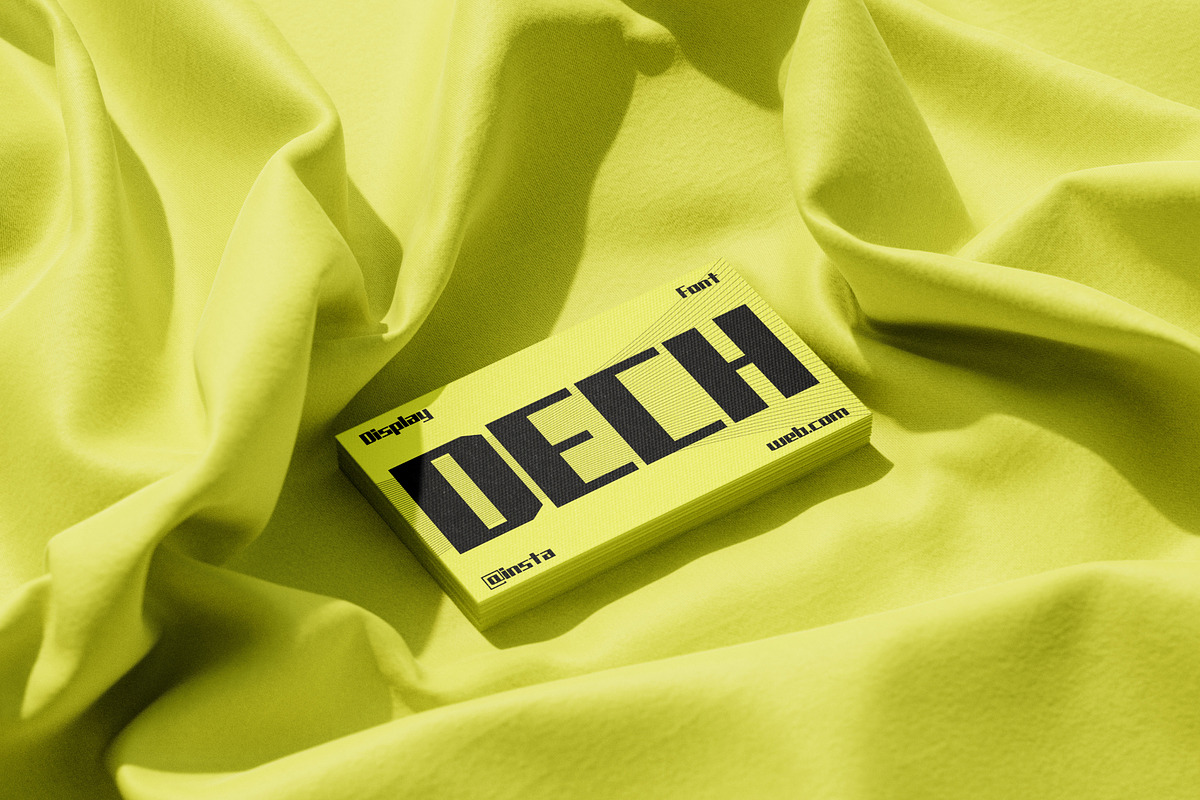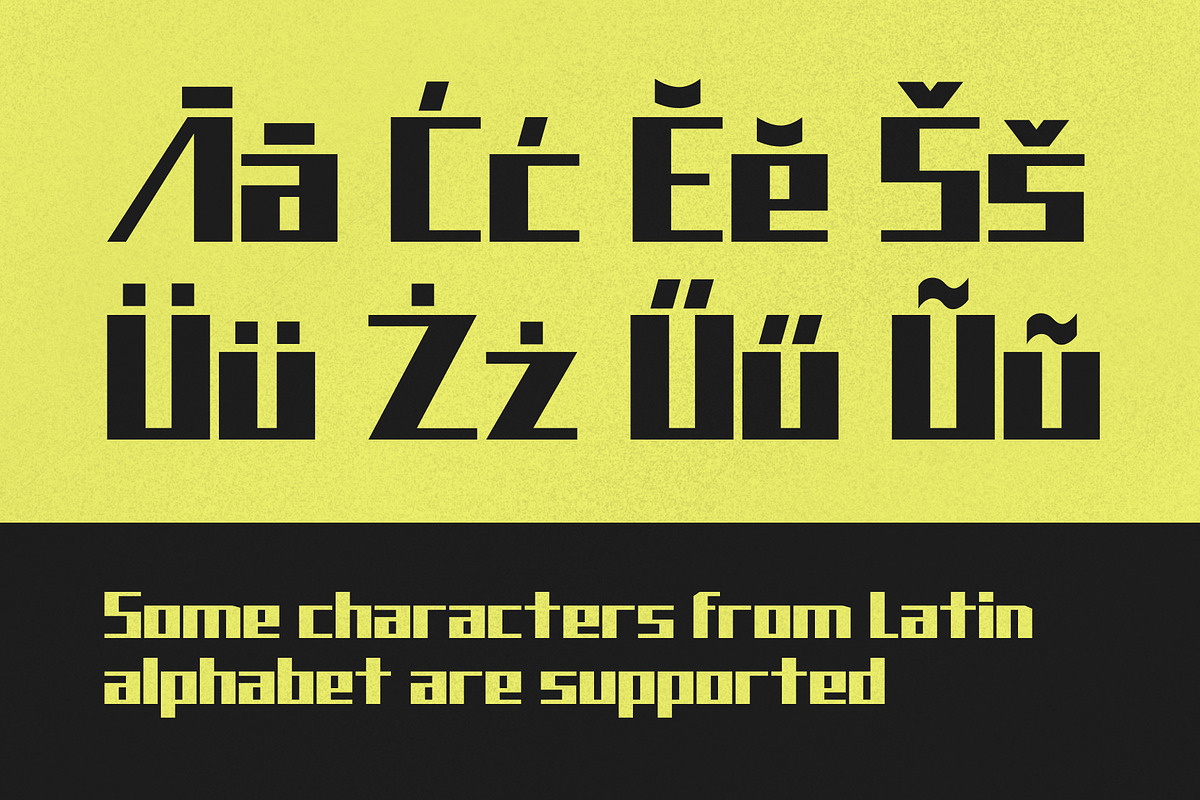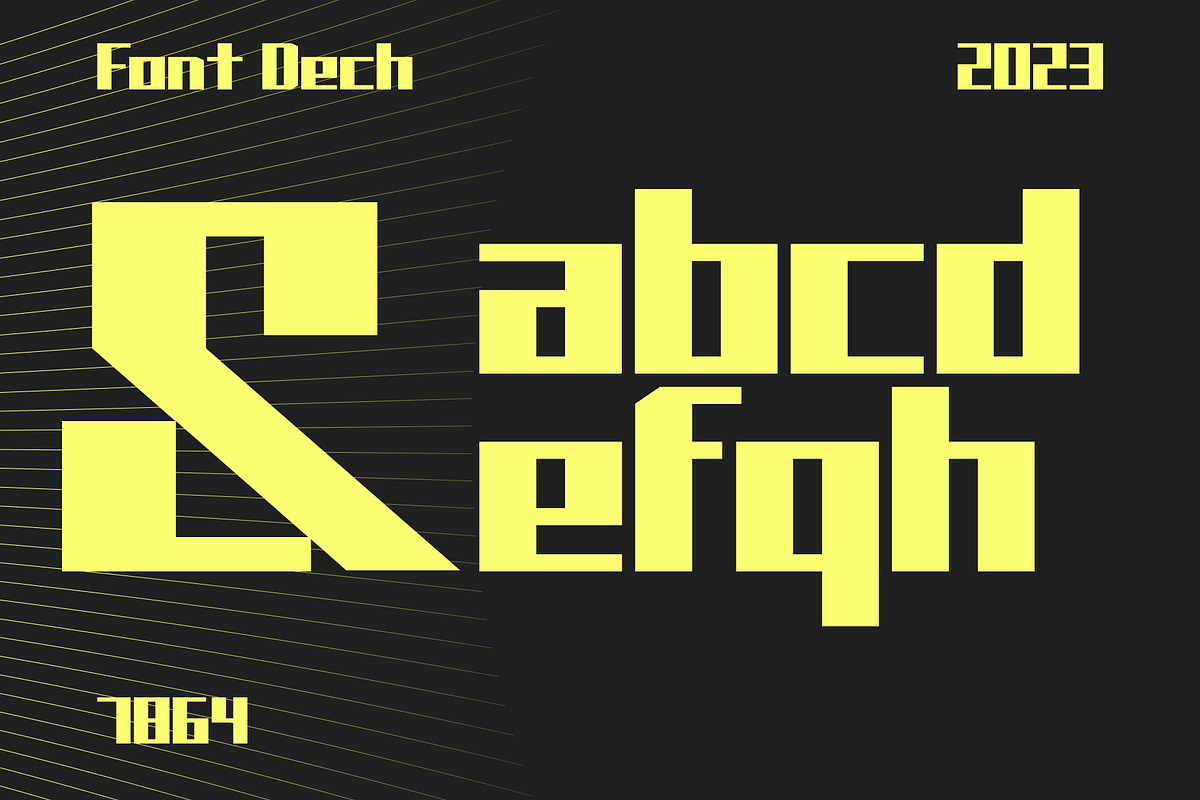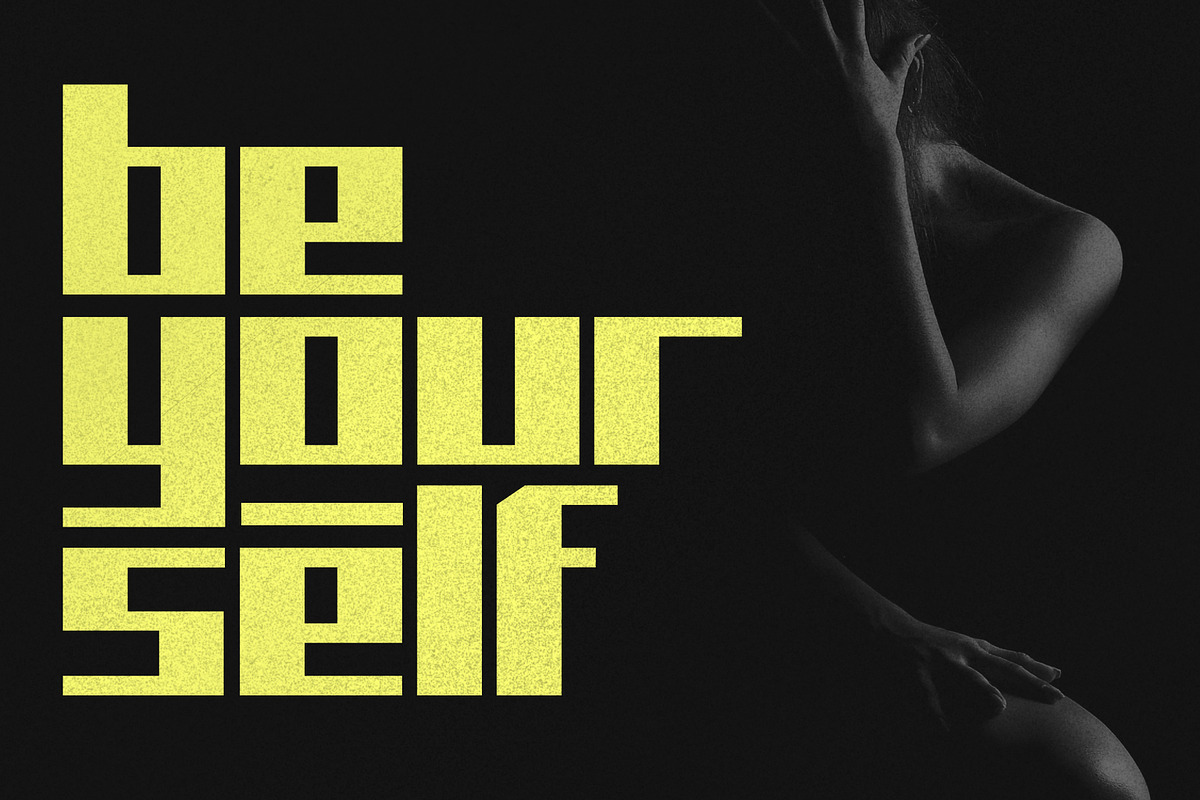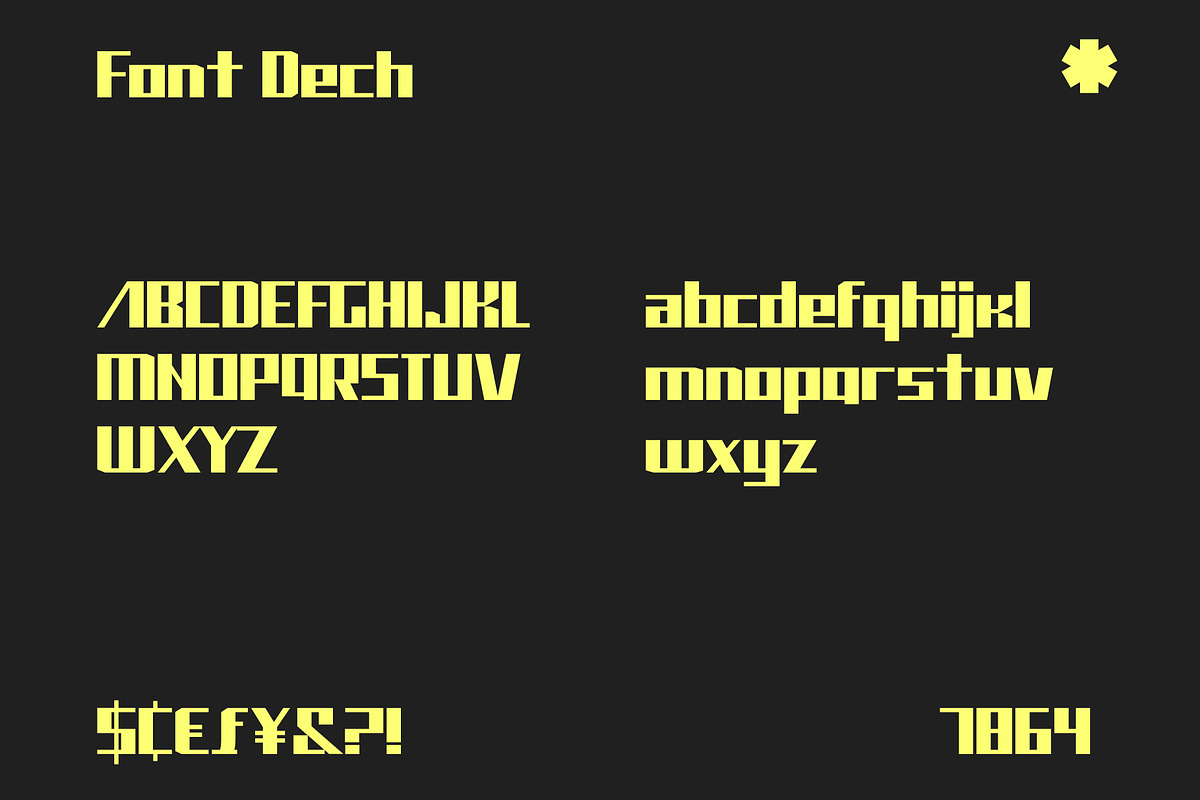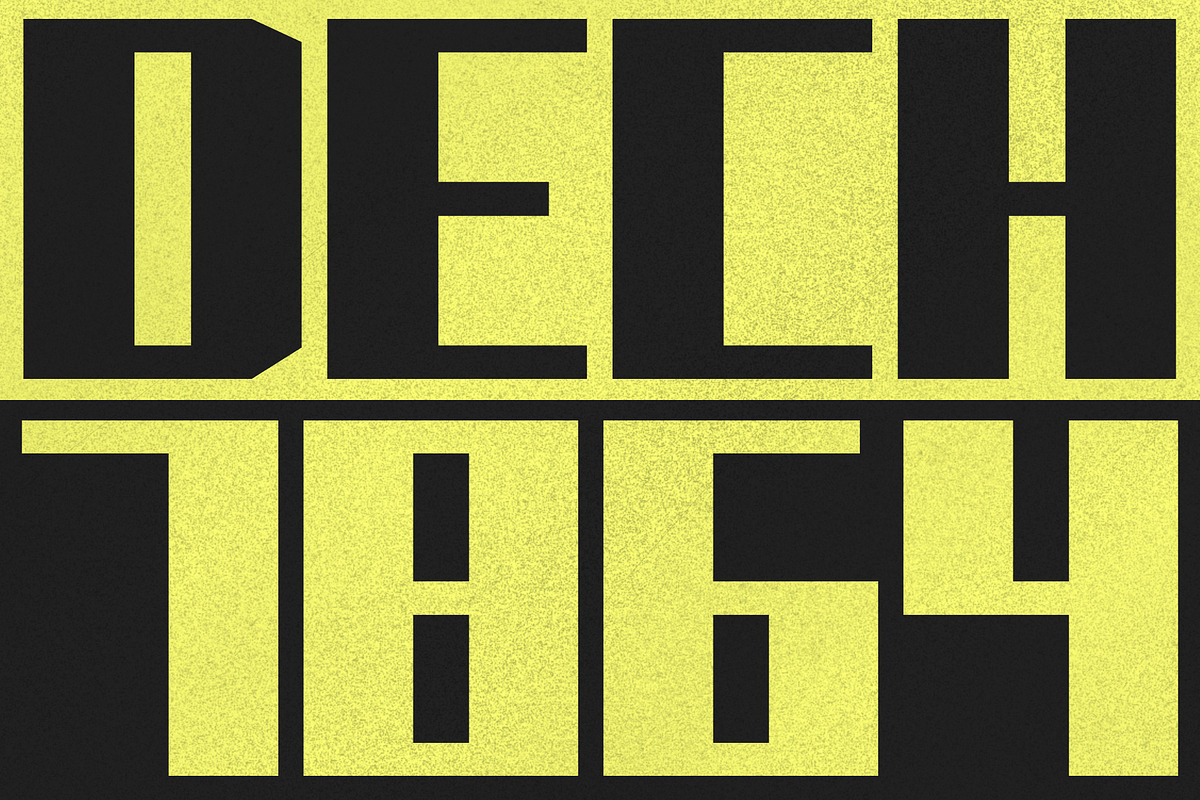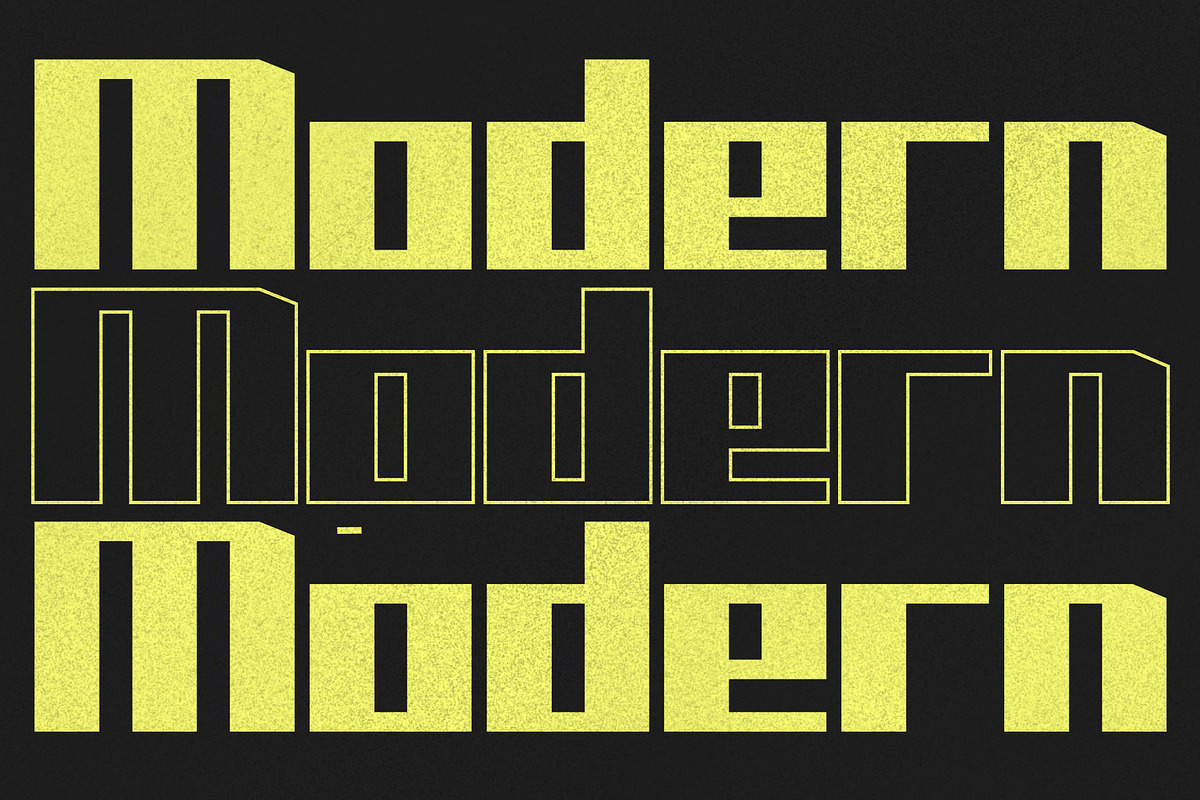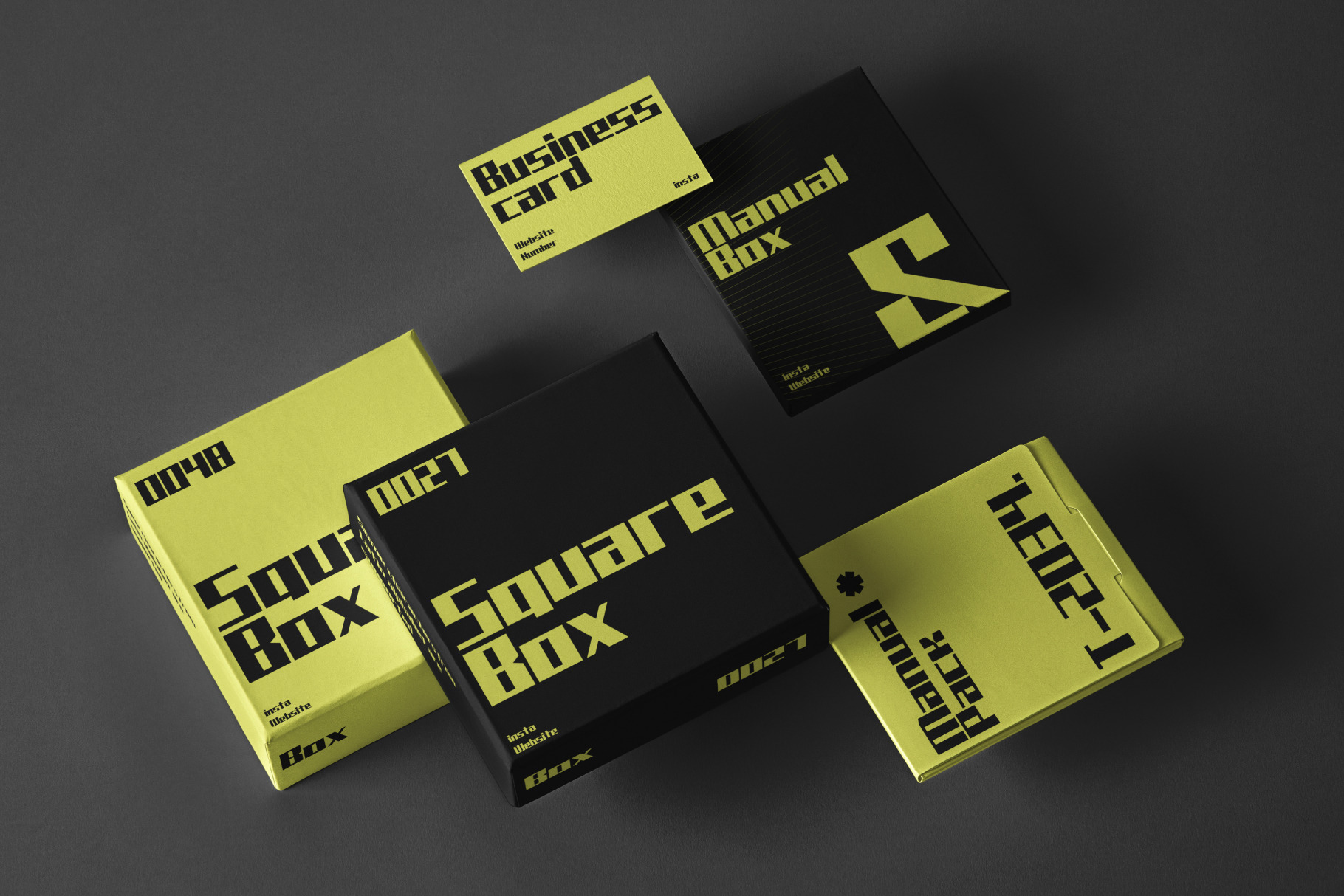
Dech Bold Display Font street
Dech is a Bold Display Font that is futuristic and minimalistic. The alternation of thin and thick lines gives the Vosr font a modern look that can be applied in all design projects.
This font is suitable for those who are looking for a modern font for their design project or branding, Add a modern font to your projects with Dech Display Font and your design will sparkle with style
Dech Bold Display Font is ideal for headlines, infographics, digital advertising, navigation menus and labels, business cards and packaging, web design, branding, logos, T-shirts, etc.